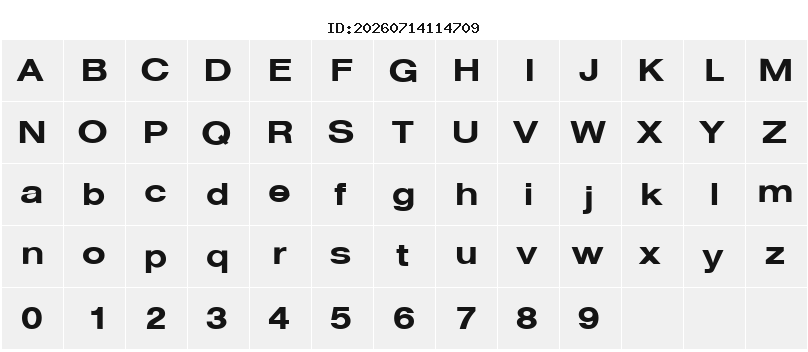
• Font Name: HegelExtendedMedium
• Full Font Name: HegelExtendedMedium-Regular
About HegelExtendedMedium.ttf
HegelExtendedMedium.ttf is a modern, elegant sans-serif font designed for ultimate readability and visual harmony. Perfect for branding, headlines, web design, and print materials.